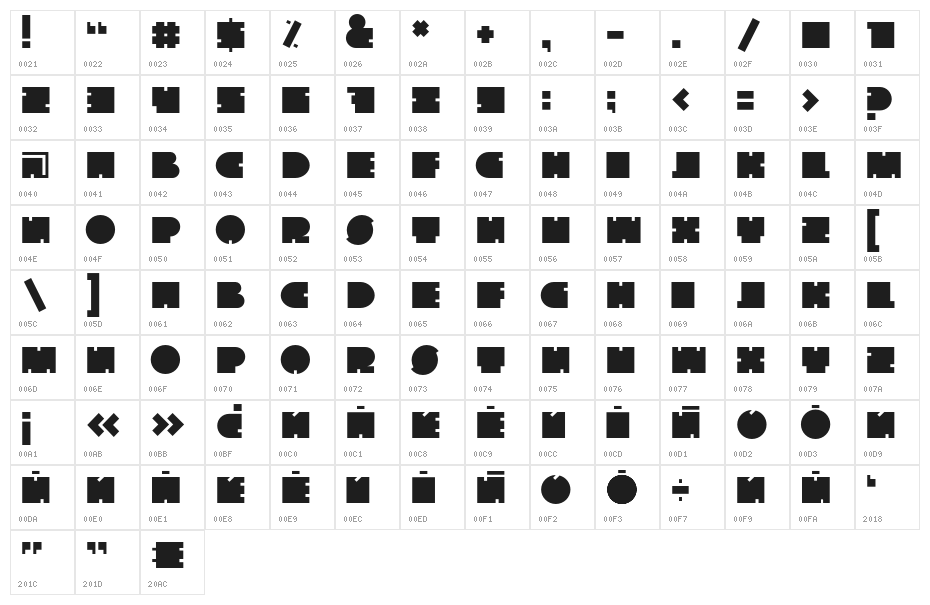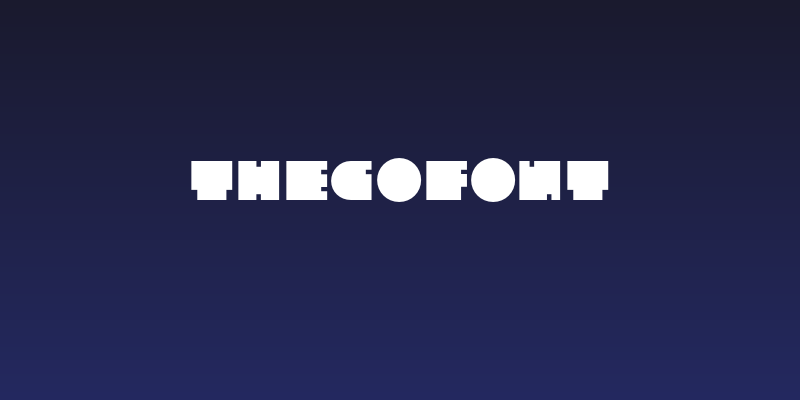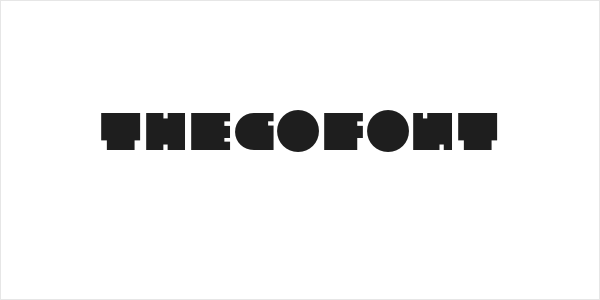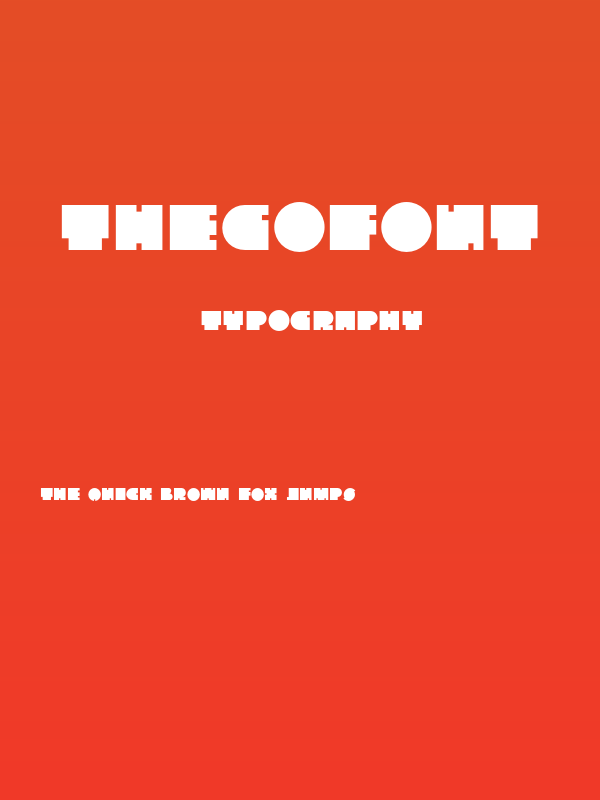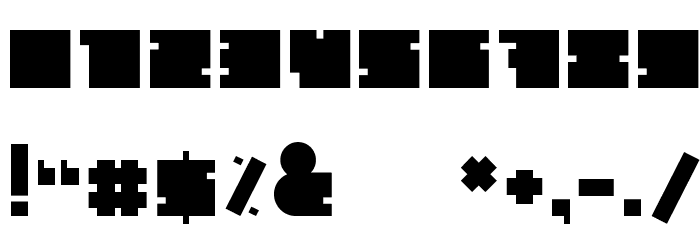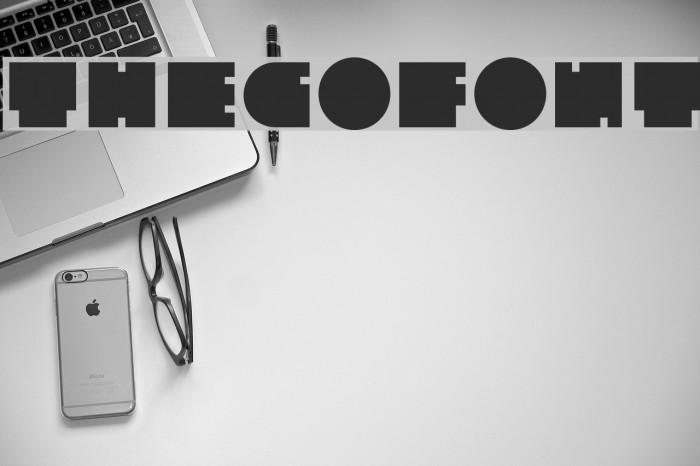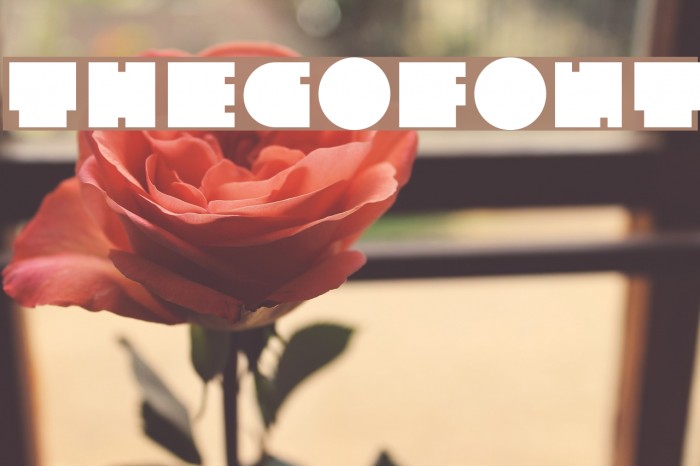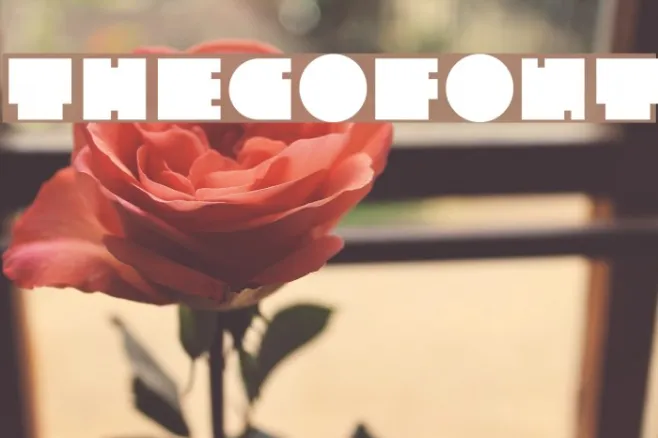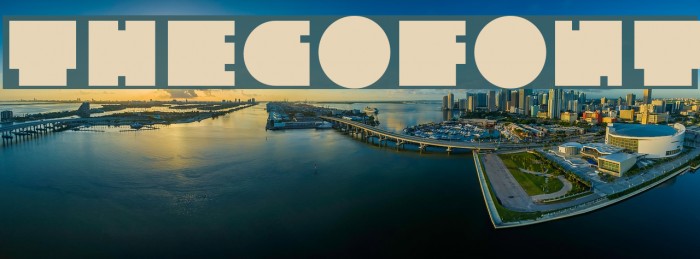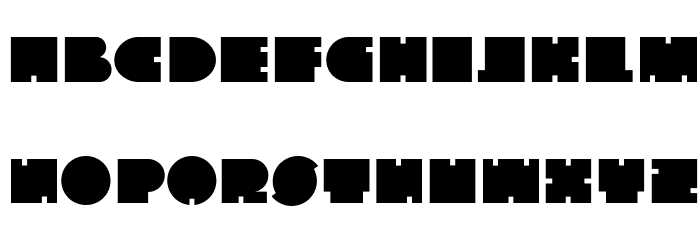
TheGoFont Font
TheGoFont Description
This font features a bold and geometric style, characterized by its blocky and solid letterforms. The characters are constructed with sharp angles and straight lines, creating a strong and impactful appearance. The uppercase and lowercase letters maintain a consistent width, contributing to a uniform and cohesive look. The numbers and special characters follow the same design principles, ensuring a harmonious overall aesthetic. This font's unique style makes it stand out, offering a modern and edgy vibe that is both eye-catching and memorable.
| Proposed Projects | Ideal for posters, logos, branding, and any project requiring a strong visual impact. |